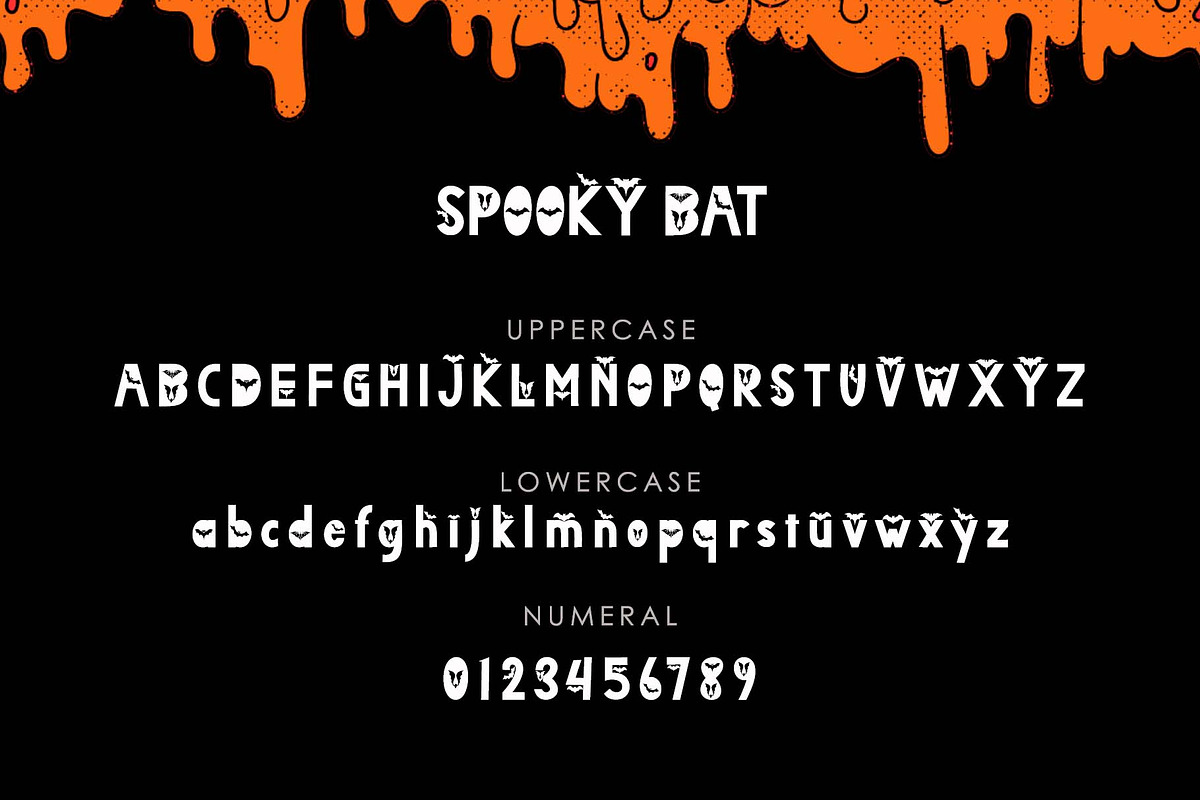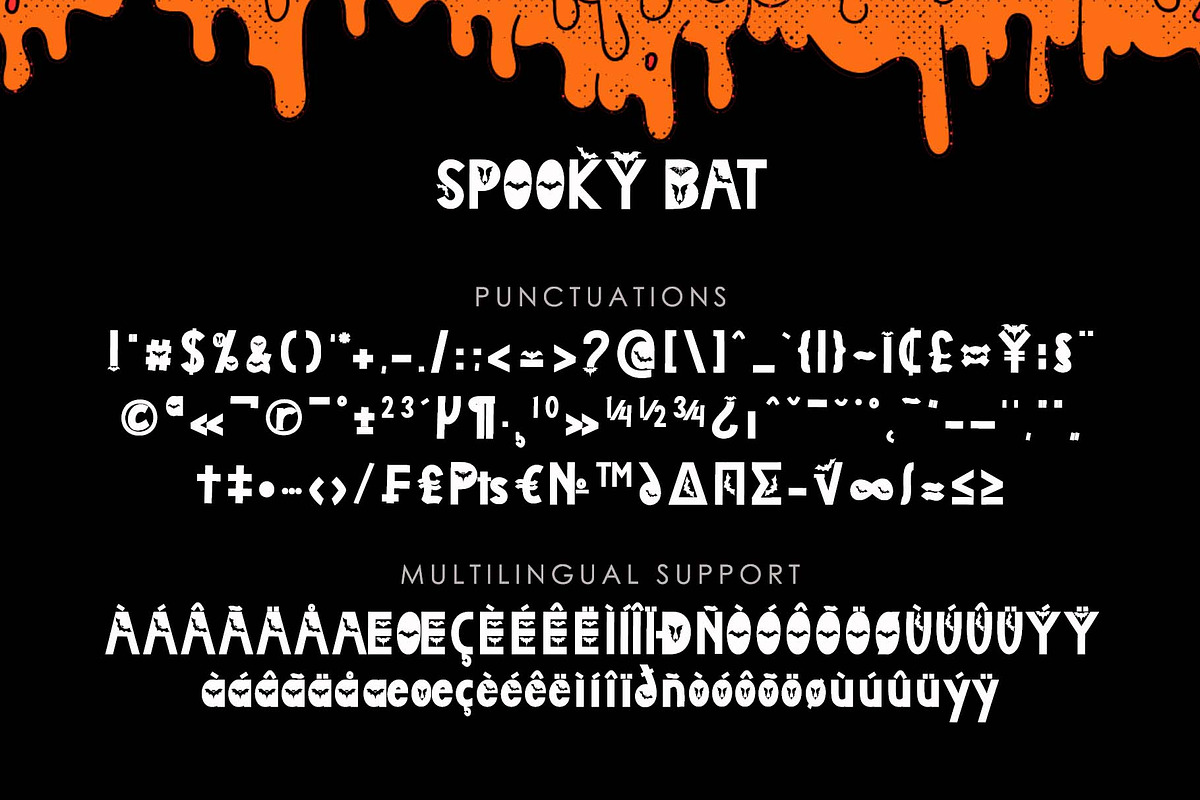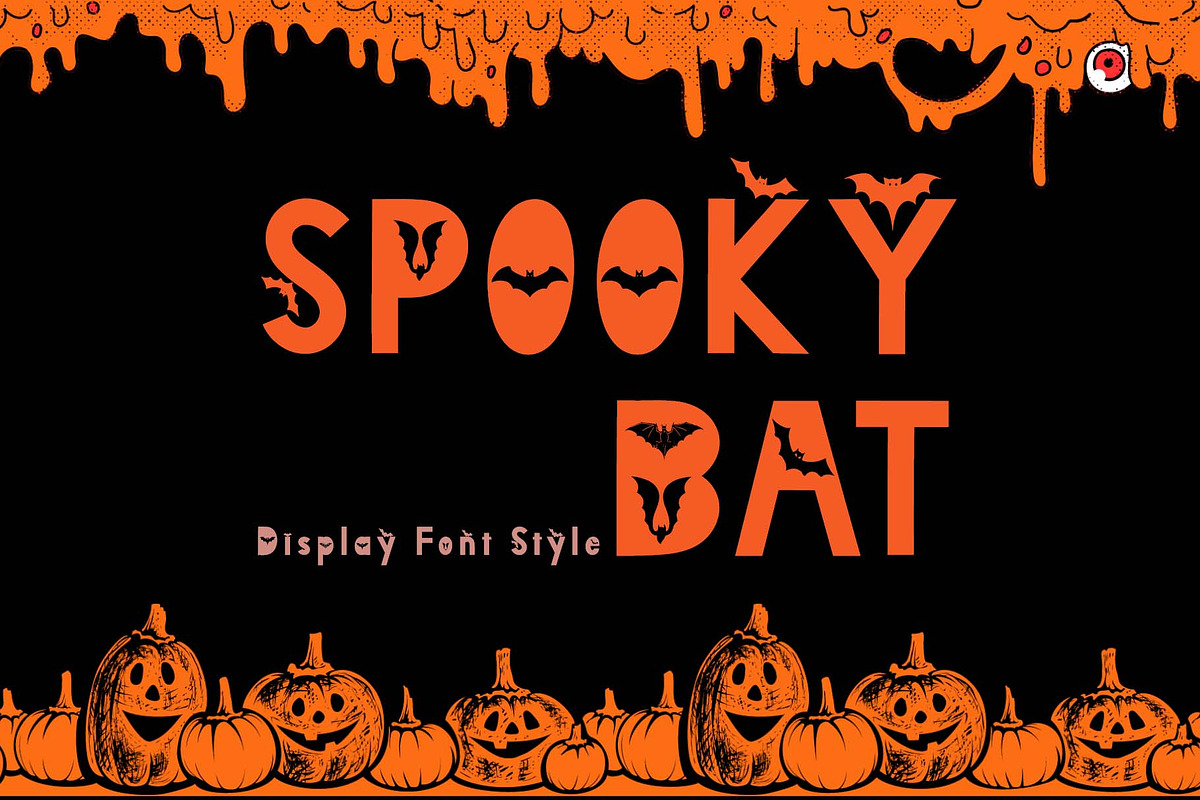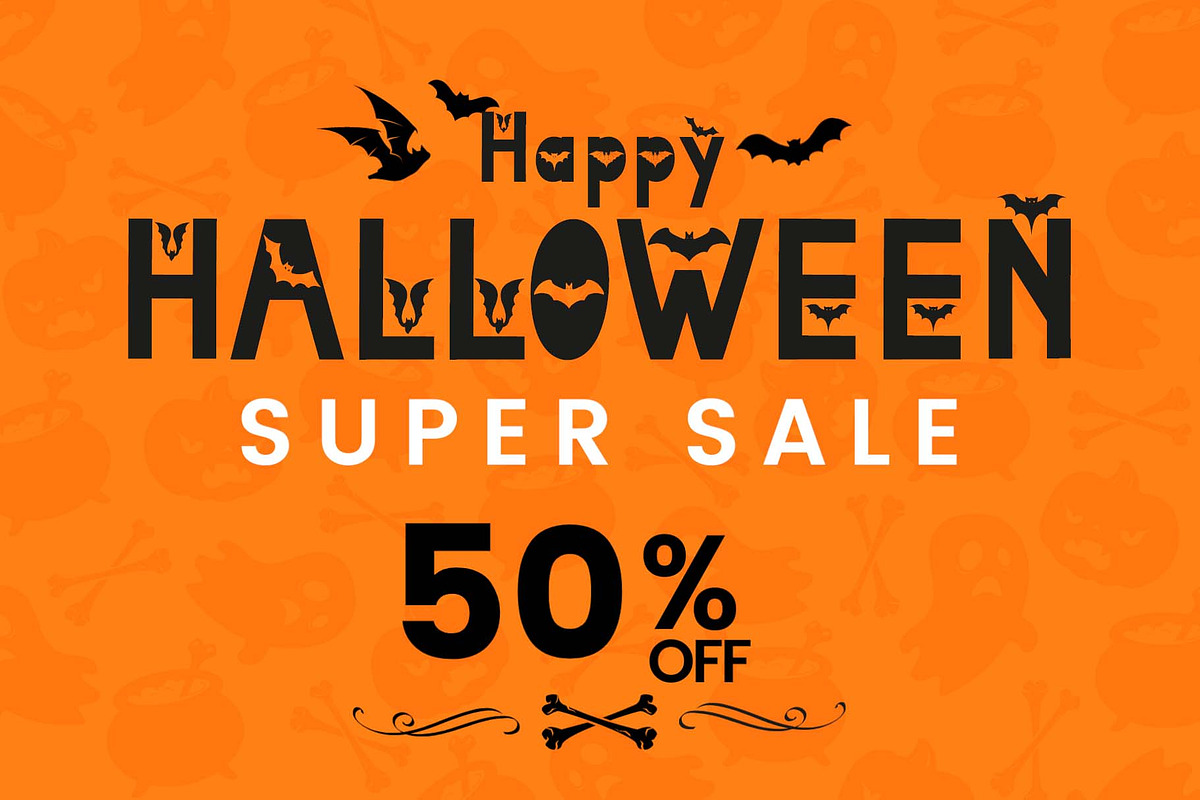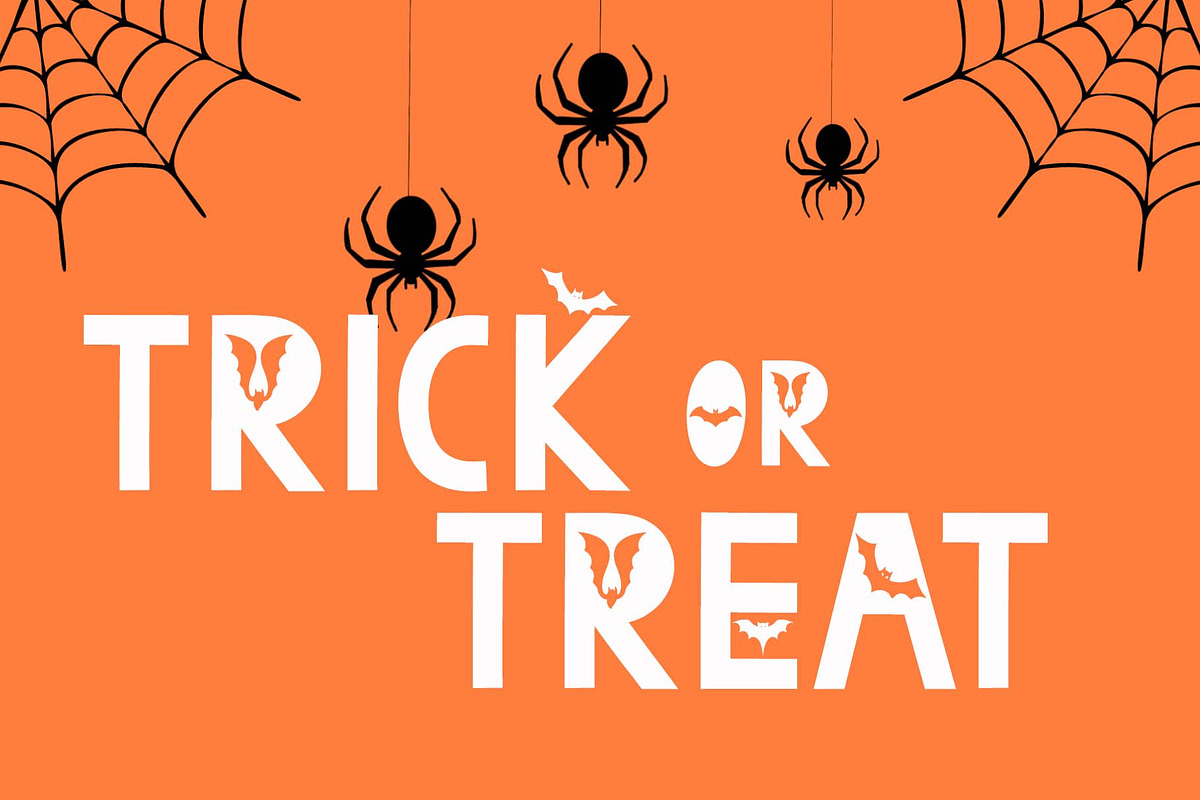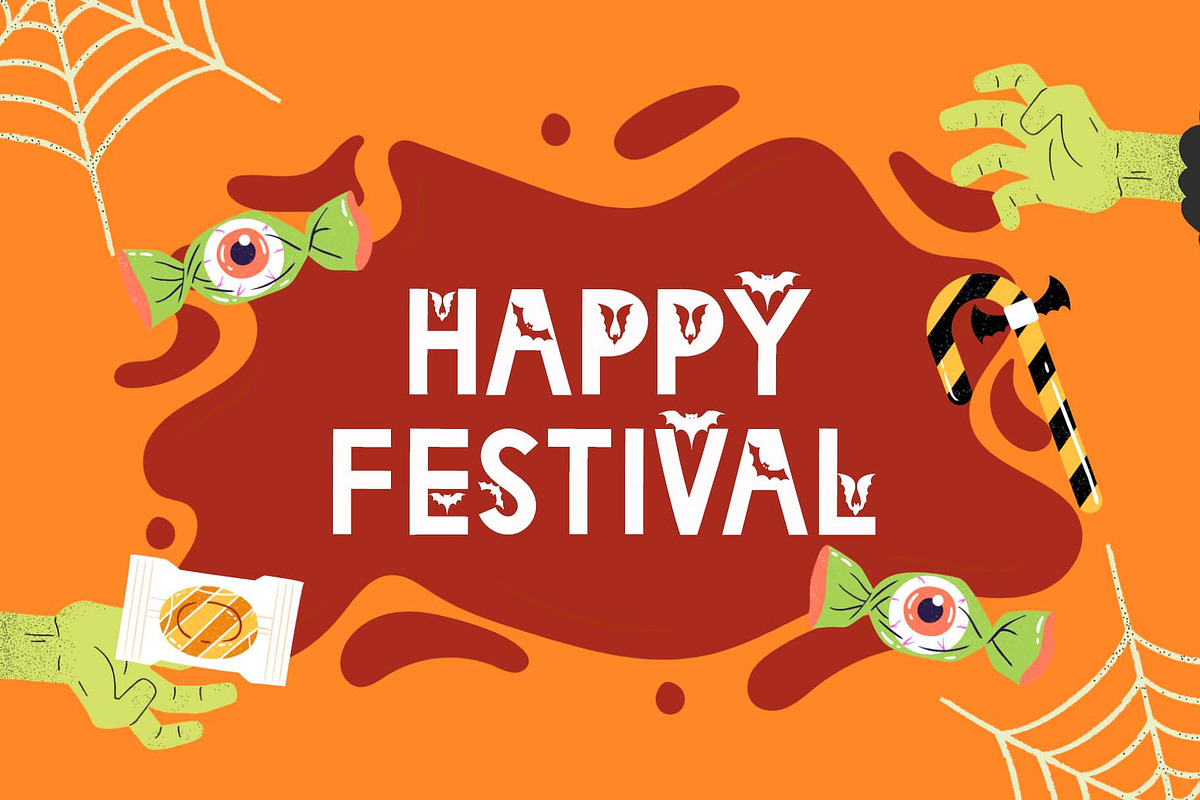
Spooky Bat
"Spooky Bat" is a horror display font with bats on the letters. It comes with capital letters, lowercase letters, numbers, punctuation, and multilingual support. It is suitable for Halloween, invitations, posters, prints, banners, branding, logos, stickers, Christmas, metal concerts, and more.